A “blessed” tattoo only works if it stays readable and balanced over time. Most people chase trendy scripts and end up with ink that spreads or looks generic within a few years. The smarter approach is choosing a font style that fits your skin, placement, and size. This list cuts through the noise and shows styles that actually hold up. You’ll also get simple ways to test ideas before committing.
1. Classic Clean Cursive (Blessed Day Style)
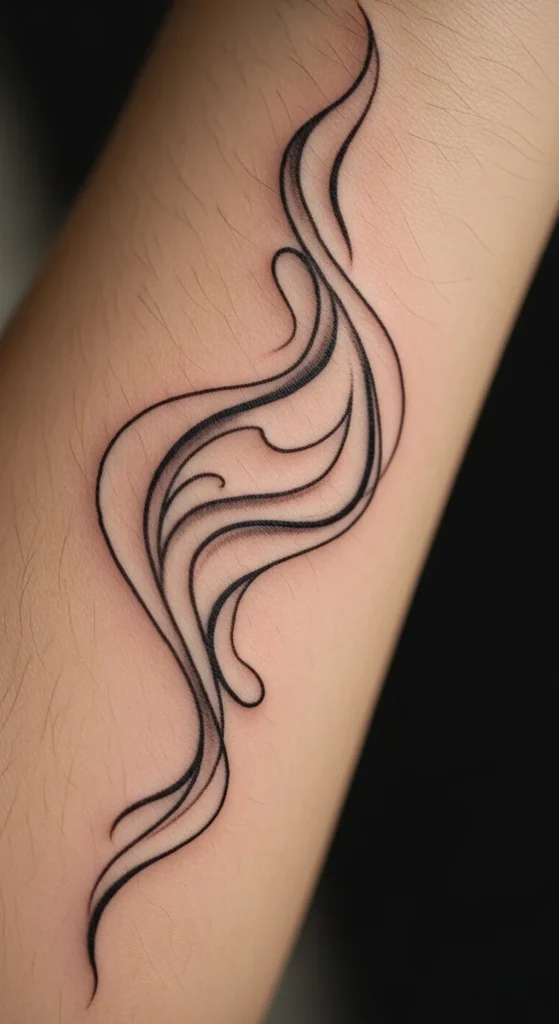
Clean cursive is the safest direction if you don’t want long-term regret. The strokes are even. The spacing is open. That’s exactly what keeps letters readable after years.
Most people ruin this by adding too many loops. Don’t. Keep it simple.
Quick test:
Print your design. Tape it to your arm. Step back two meters. If you hesitate reading it, it will age badly.
Budget tip:
Use a free cursive font and ask your artist to tweak spacing slightly. That alone makes it feel custom.
Best placement:
Forearm. It stays flat and visible.
2. Thin Italian Calligraphy
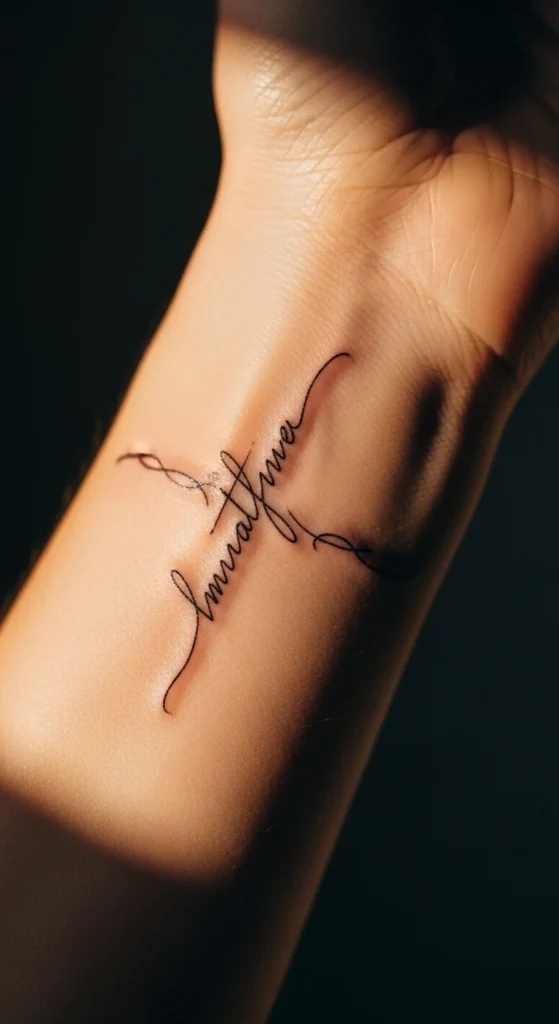
Thin calligraphy looks sharp at first—but fades fast if done poorly.
You want controlled thinness, not fragile lines.
Avoid extreme contrast between thick and thin strokes. That’s where breakdown starts.
DIY check:
Draw it with a fine pen. Wash it after a day. Notice weak spots.
Placement:
Wrist or collarbone.
Reality check:
If your artist doesn’t specialize in fine-line work, skip this.
3. Swash Script with Tail Ends
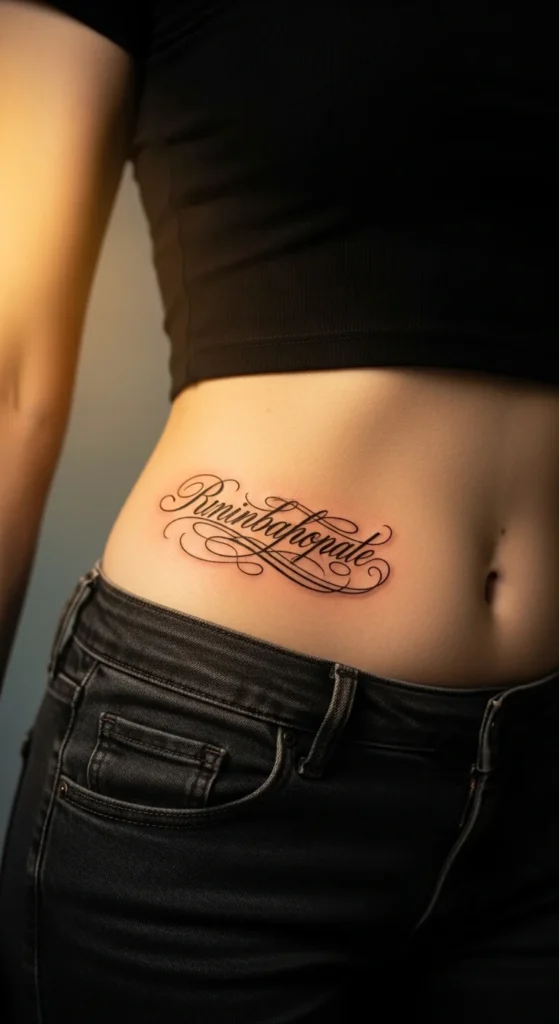
Swashes are where people overcomplicate things.
One tail works. Five tails look messy.
Keep the word readable first. Decoration comes second.
Budget move:
Ask your artist to draw one custom tail instead of buying a decorative font.
Placement:
Hip or rib for natural curve flow.
4. Handwritten Signature Style
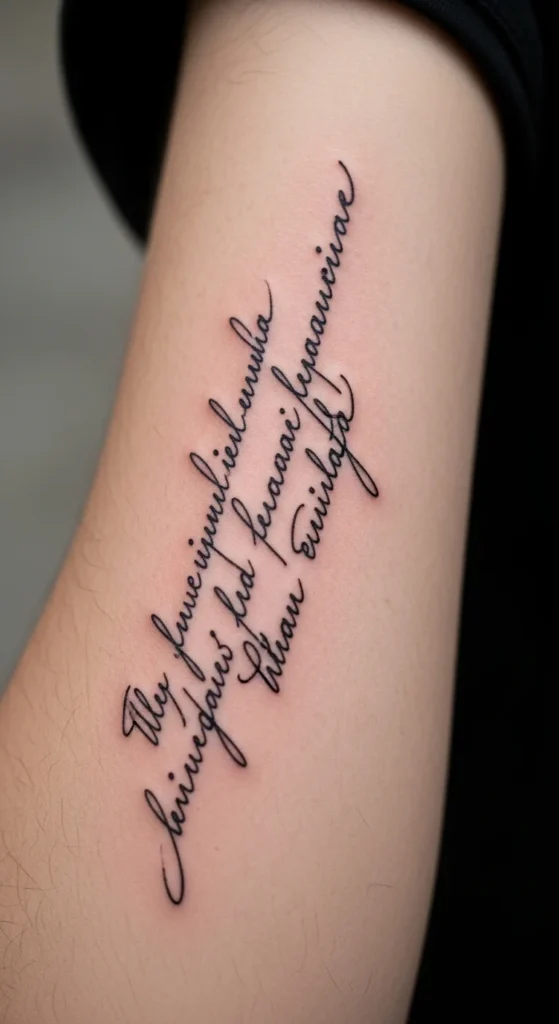
This beats most font choices. It’s personal.
Use real handwriting. Yours or someone meaningful.
Scan it. Clean it slightly. Keep imperfections minimal.
Mistake to avoid:
Messy handwriting doesn’t translate well to skin.
Placement:
Inner arm for a personal feel.
5. Minimalist Micro Script
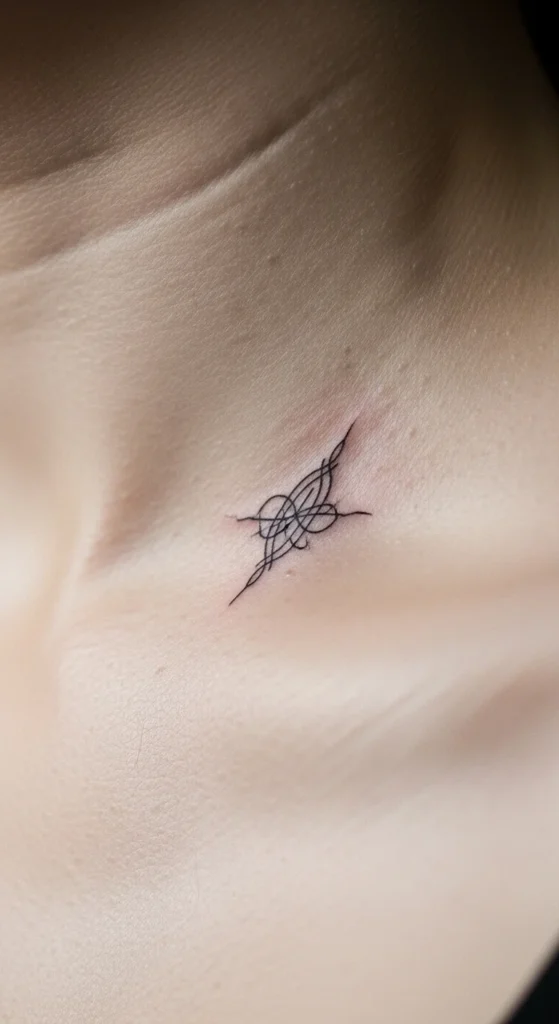
Tiny tattoos fail when they’re too small.
Letters need space. Always.
Rule:
Each letter should be at least 5–7 mm tall.
Budget reality:
Don’t cheap out here. Precision matters more than style.
Placement:
Collarbone or finger (expect faster fading on fingers).
6. Bold Script Statement
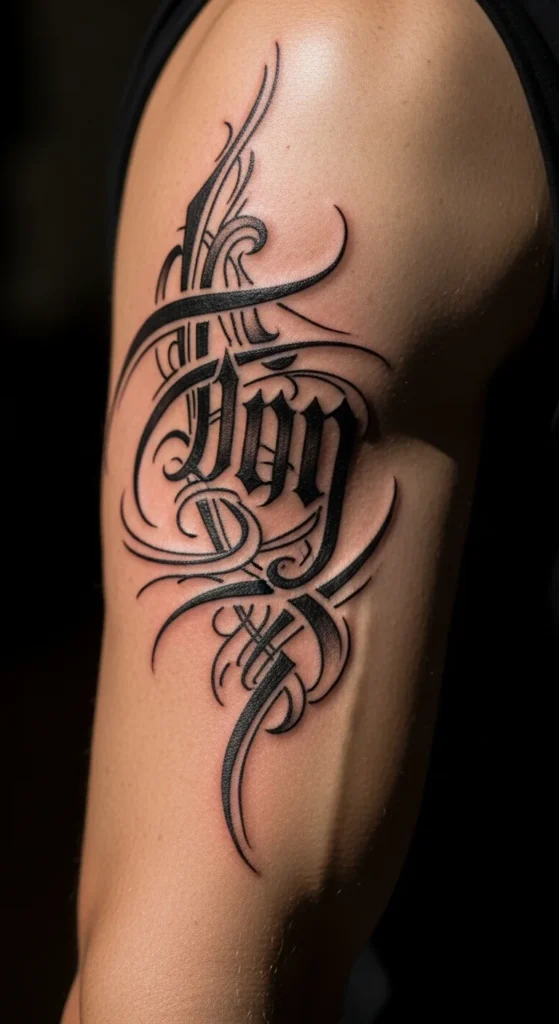
Bold script lasts longer. That’s the advantage.
Thicker lines resist fading and spreading.
But don’t go extreme. Medium-bold works best.
DIY test:
Fill your design with marker. If it still looks clean from distance, it works.
Placement:
Outer bicep or chest.
7. Vintage Distressed Script
Distressed fonts try to look aged—but tattoos age anyway.
Too much distress turns into visual noise later.
Keep breaks subtle.
DIY tip:
Manually erase tiny parts instead of using heavy preset effects.
Placement:
Ribcage or thigh for larger designs.
8. Modern Handwritten Minimal
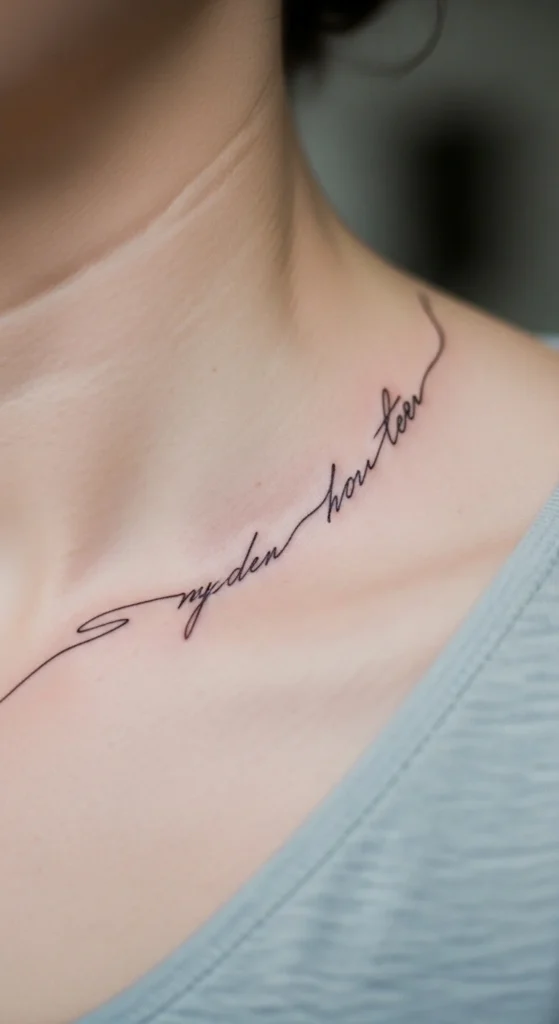
Simple beats complicated almost every time.
Modern handwritten styles focus on clarity.
No heavy loops. No exaggerated curves.
DIY tip:
Use a basic brush pen and write multiple versions. Pick the cleanest.
Placement:
Collarbone or forearm.
9. All-Lowercase Connected Script
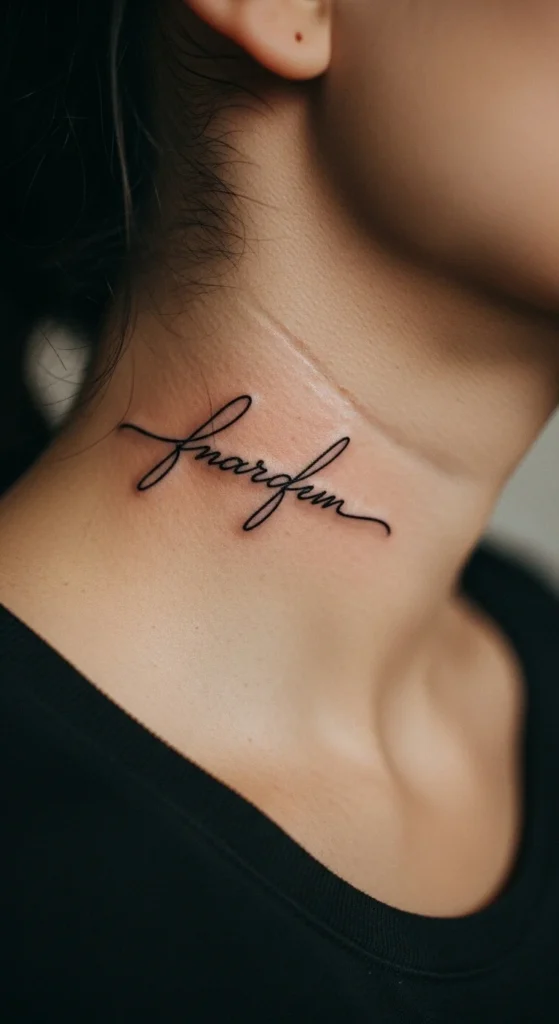
Lowercase script feels softer and more fluid.
It stretches nicely along curved areas.
Watch spacing. Tight letters merge quickly.
Placement:
Neck or collarbone.
10. Uppercase Swash Capitals
Uppercase gives presence.
Add one or two swashes—not more.
Too many decorations reduce clarity.
Placement:
Chest or upper arm.
11. Ligature-Heavy Script
Ligatures connect letters smoothly.
They remove awkward gaps.
But overuse creates confusion.
Keep joins natural.
12. Serif + Script Combo
Mixing styles adds contrast.
Script for “blessed.” Simple font for accents.
Keep one dominant.
13. Fine-Line Elegant Script
Fine-line works when spacing is generous.
Crowding kills it.
Choose a skilled artist.
14. Retro Tattoo Script
Old-school styles age better.
They’re built for longevity.
Keep lines bold and spacing wide.
15. Brush Script Flow
Brush scripts feel energetic.
But uneven strokes can blur.
Simplify edges before tattooing.
16. Spine-Aligned Vertical Script
Vertical layouts require precision.
Spacing must stay consistent.
Use minimal decoration.
17. Finger Micro Lettering
Finger tattoos fade fastest.
Keep letters thicker than you think.
Expect touch-ups.
18. Collarbone Flow Script
Follow the body’s curve.
Don’t force straight alignment.
Flow matters more than symmetry.
19. Ribcage Vertical Script
Go slightly larger here.
Small scripts distort on ribs.
Keep spacing open.
20. Inner Arm Personal Script
This area suits personal designs.
Keep it readable at close range.
Avoid heavy decoration.
Conclusion
Most “blessed” tattoos fail for predictable reasons—too small, too decorative, or poorly spaced. You don’t need a rare font. You need clarity, balance, and a design that survives time. Test your idea on paper, on skin, and from a distance before committing. If it doesn’t read instantly now, it won’t later.